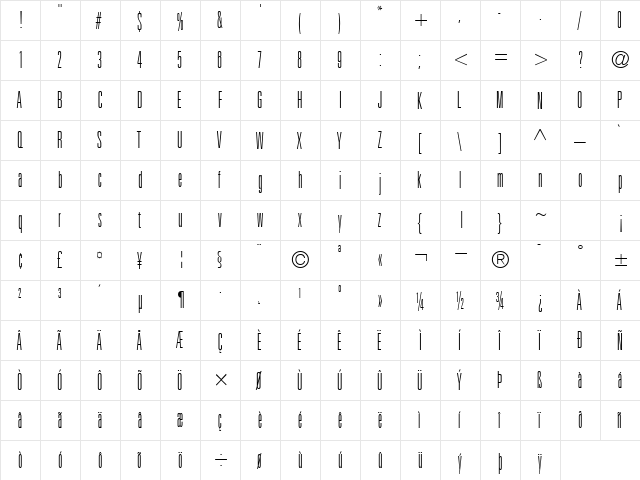
Panther Normal
Design Context for Panther Typeface
Panther offers clean, dependable letterforms without strong stylistic allegiance, making it a practical choice for designers who need flexibility.